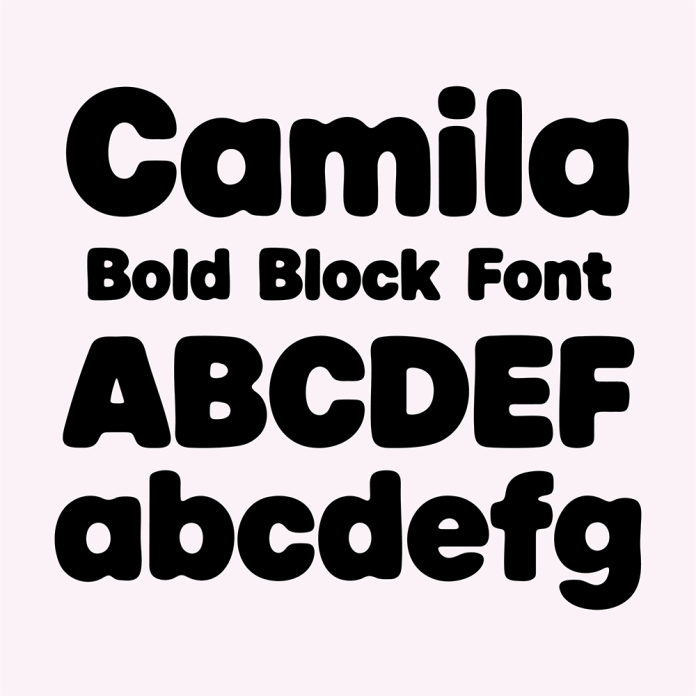
BFC Camila Bold Soft Block Title Font is a modern and playful sans serif font perfect for summer-themed designs. Its key features include bold and rounded block letters, giving a fun and friendly aesthetic. This font is ideal for creating eye-catching titles, headlines, and logos with a unique and stylish look.